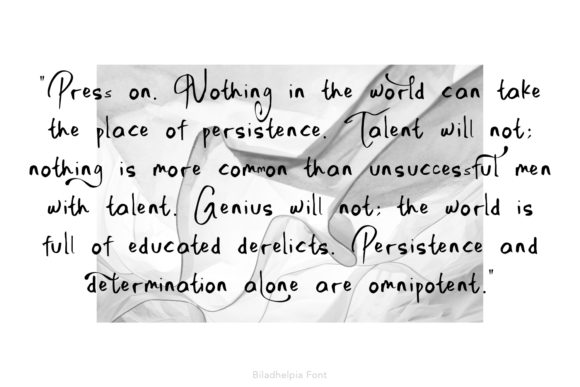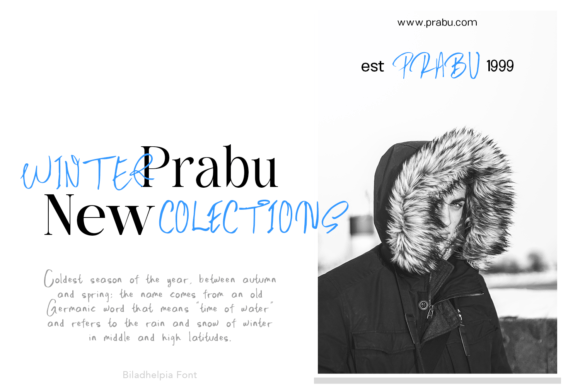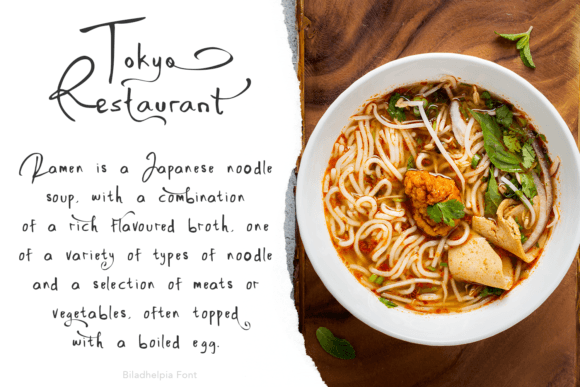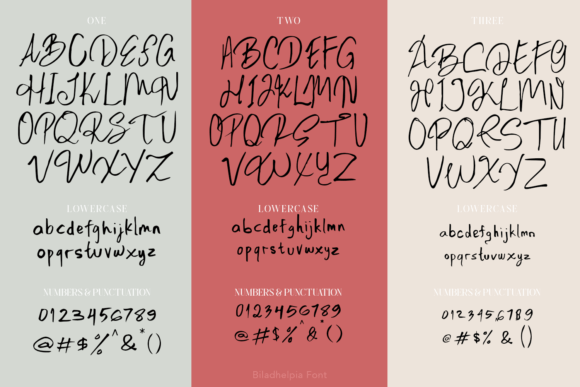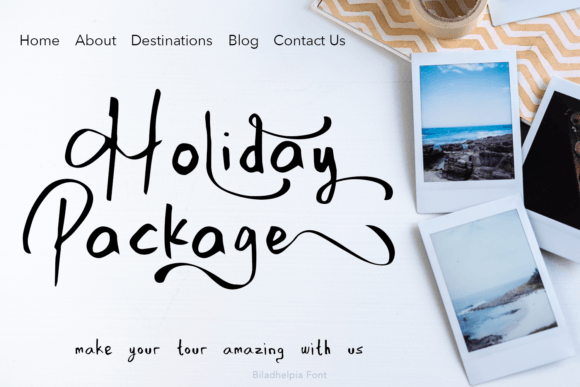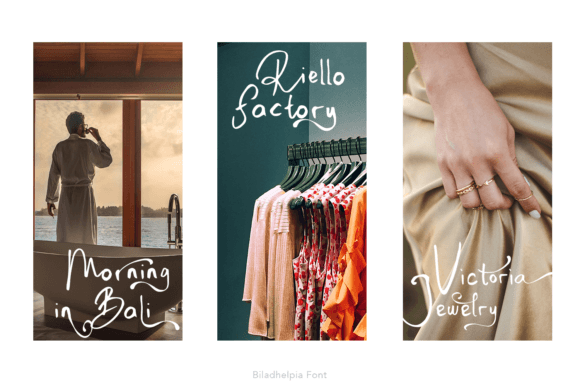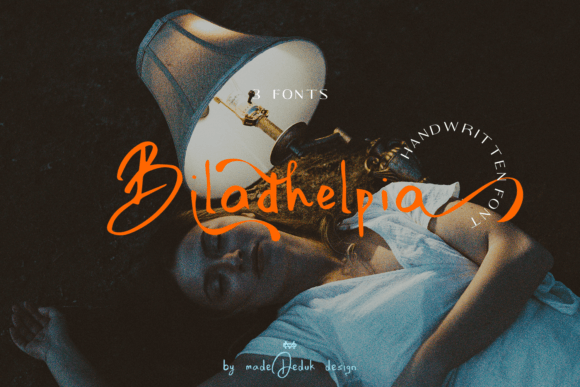
Discover the Beauty of Biladhelpia Font: A Handwritten Bundle for Creative Projects
I’ll never forget the moment I was working on a project for a client who needed a unique, handwritten font for their branding. I scoured the internet for hours, but nothing seemed quite right. That was until I stumbled upon Biladhelpia Font. This stunning bundle of handwritten fonts has been a game-changer for my design work, and I’m excited to share it with you.
A Personal Review: What I Love About Biladhelpia Font
Biladhelpia Font is more than just a font – it’s a collection of three beautiful, handwritten versions that will elevate your designs. Here are some things I love about it:
• ✨ Variety of alternatives: With three versions to choose from, you can pick the one that best fits your project’s tone and style.
• ✅ Ligatures and stylistic alternates: Biladhelpia Font comes with a range of ligatures and stylistic alternates, making it perfect for creating unique and eye-catching designs.
• 💫 Perfect for a range of projects: From books and title branding to product packaging, invitations, and posters, Biladhelpia Font is versatile and adaptable.
While Biladhelpia Font is an amazing resource, there are a few things to keep in mind:
• 🤔 Learning curve: With so many alternatives and ligatures, it may take some time to get familiar with the font’s features.
The Story Behind Biladhelpia Font
Biladhelpia Font was created with the intention of providing a unique, handwritten font for designers and crafters. The designer wanted to create a font that was both elegant and playful, with a range of alternatives and ligatures to keep designs fresh and exciting.
Font Name Biladhelpia Font
Author madeDeduk